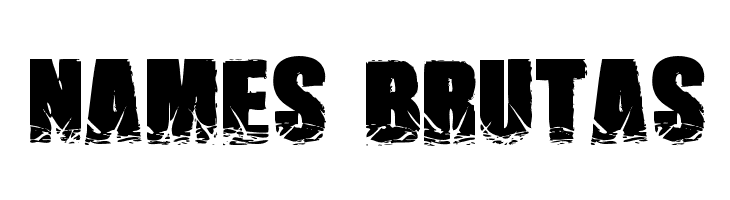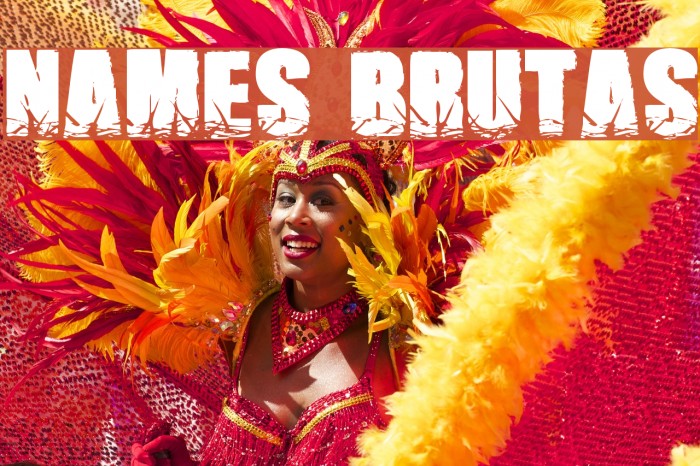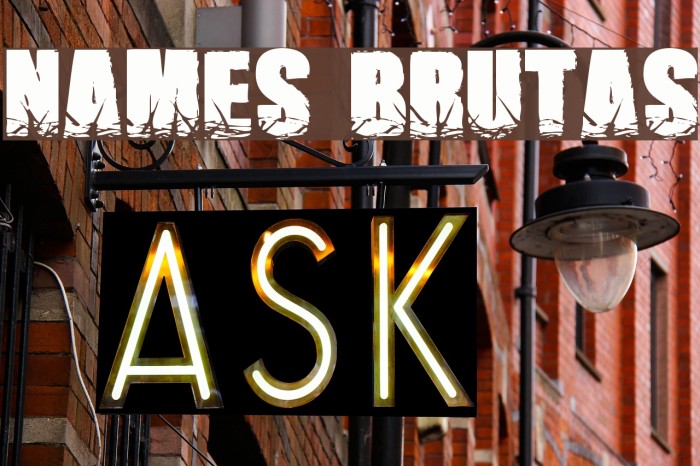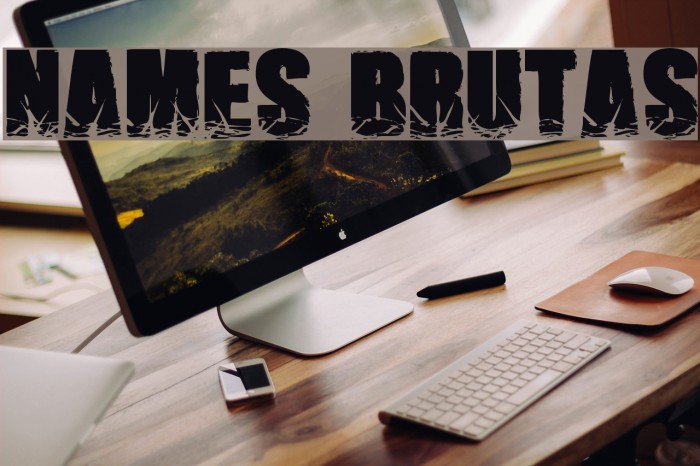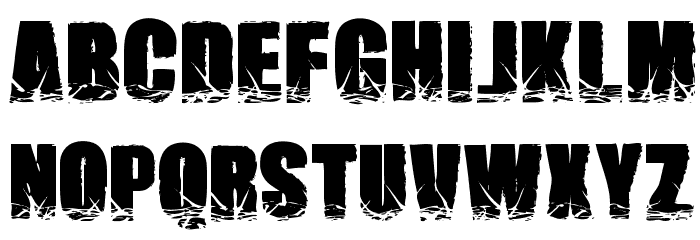
Names Brutas Font
Names Brutas Description
This font features a bold and rugged design, characterized by its distressed and grungy appearance. The letters are heavily textured, giving them a rough, worn-out look that suggests a sense of raw energy and urban edge. The uppercase letters are particularly striking, with jagged edges and a bold presence that commands attention. This style is reminiscent of street art or graffiti, making it ideal for projects that require a strong, impactful visual statement. The font's unique aesthetic is perfect for creating eye-catching headlines, posters, or branding materials that aim to convey a sense of rebellion or nonconformity.
A bold, distressed font with a rugged, grungy aesthetic from Uncategorized fonts.
- Proposed Projects: Ideal for posters, album covers, streetwear branding, or any project needing a bold, edgy look.
- Overall Style: Grunge, Urban, Edgy
- Use Case: Headlines, Posters, Branding